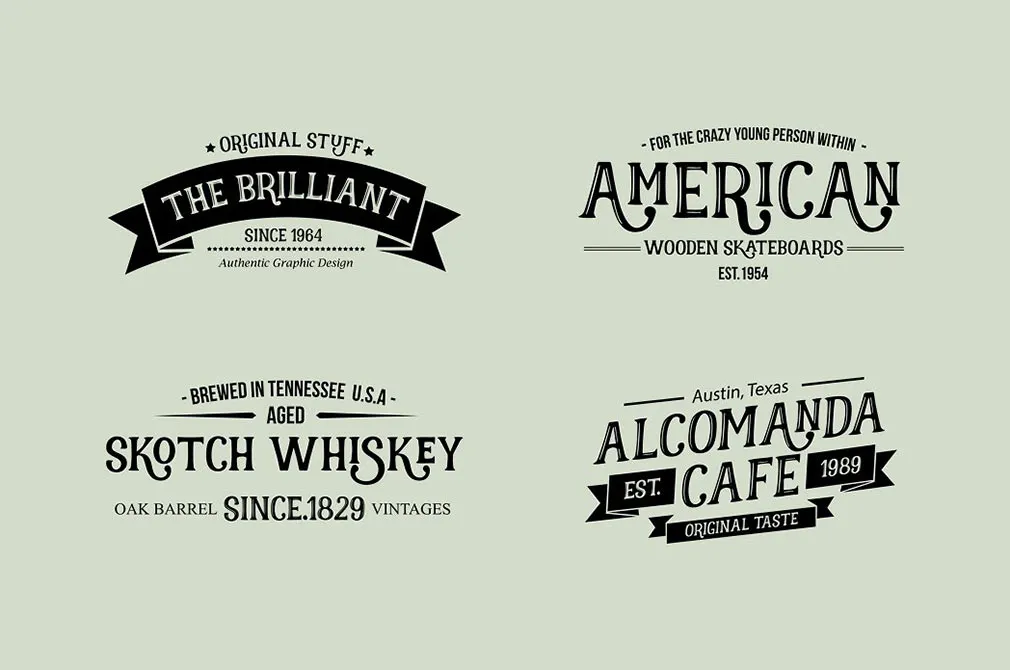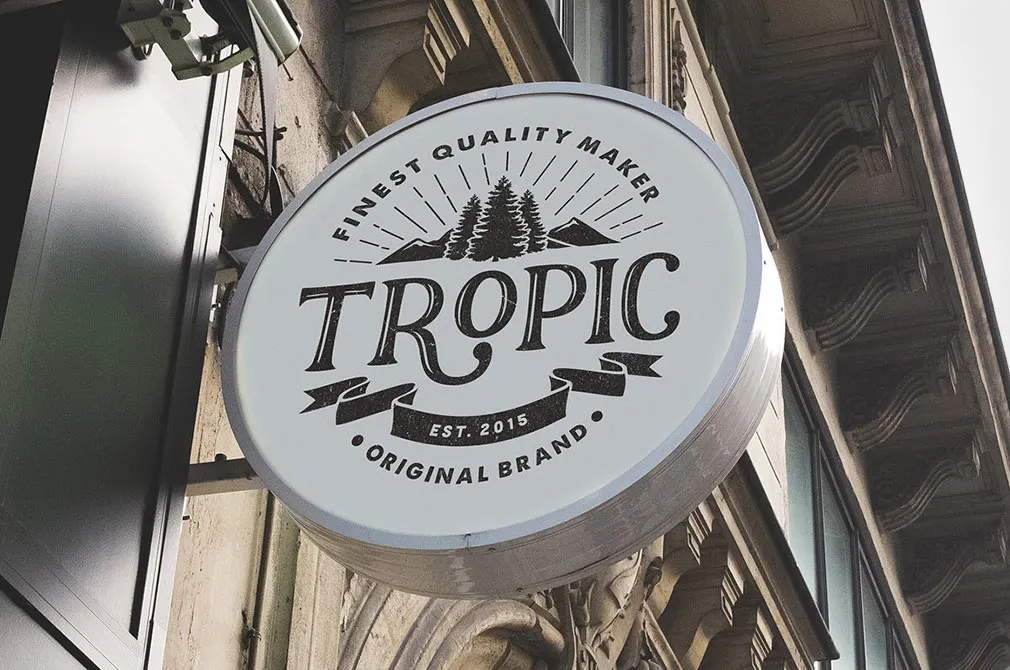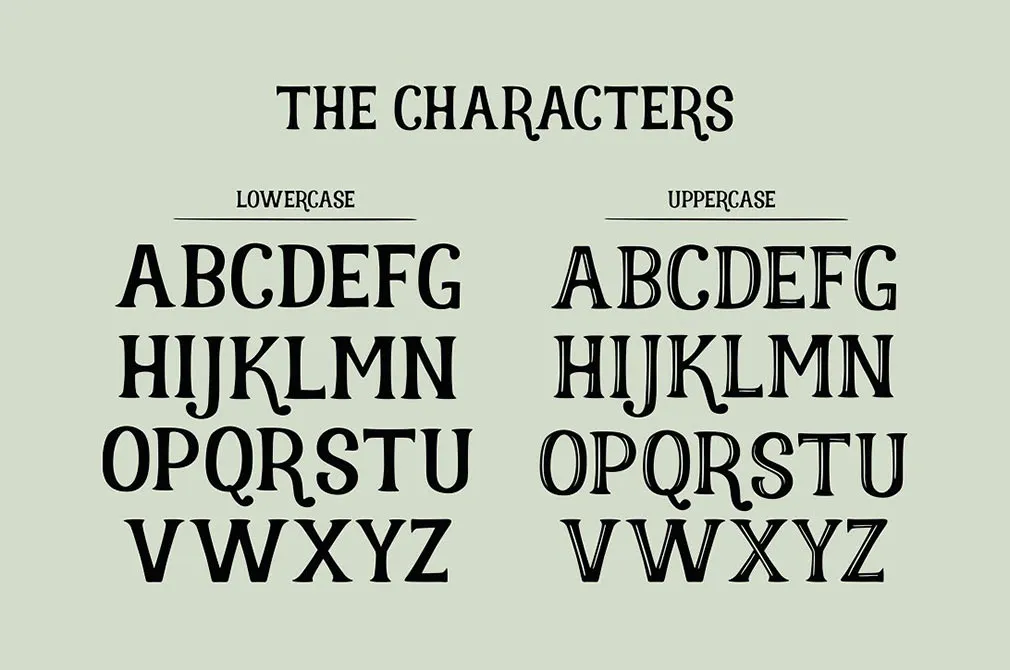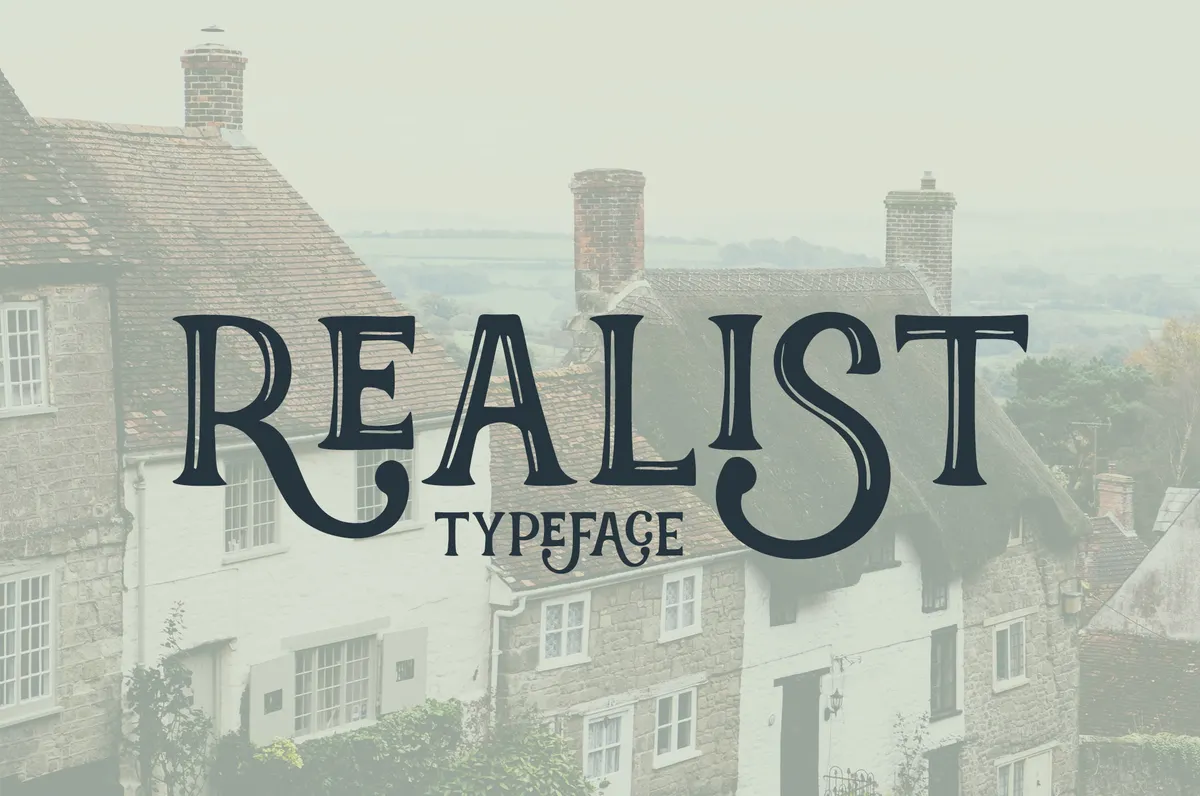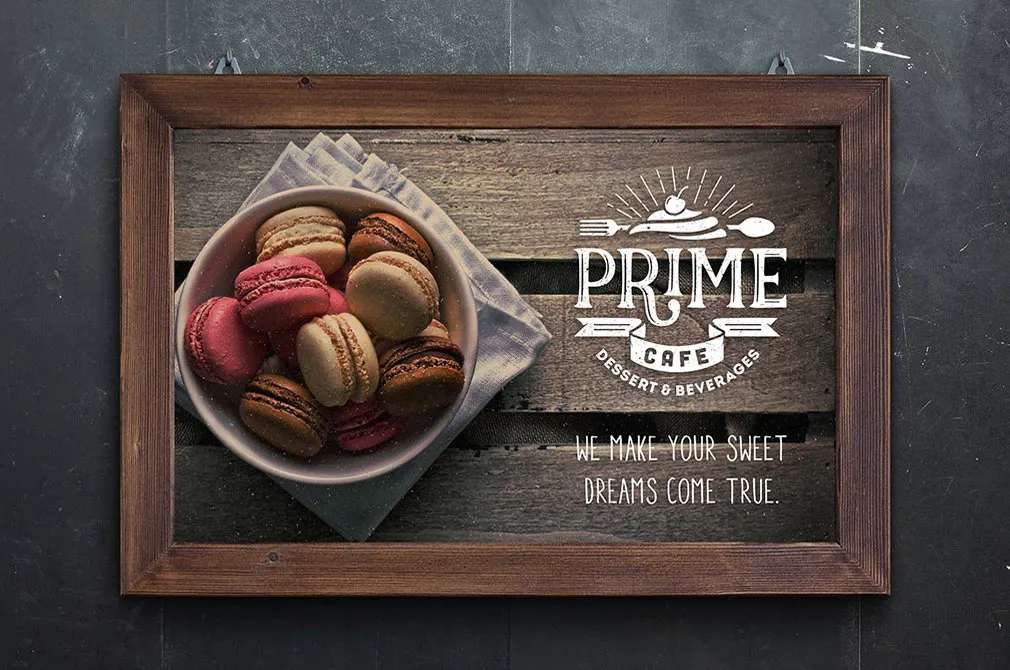
Realist Typeface
Another day, another amazing font - that is an unspoken rule of any passionate designer. Especially if we both mean the one from classic posters.
Hand-written, possessing a huge variety of symbols, it may turn into a fine addition to your typeface library as well as a central element of a composition to catch and delight the eye. The only thing that you've to carry about is what to use it for. Will it be on a backpack, on a greeting card or on a paper bag of some glamorous boutique? It's up to you only!